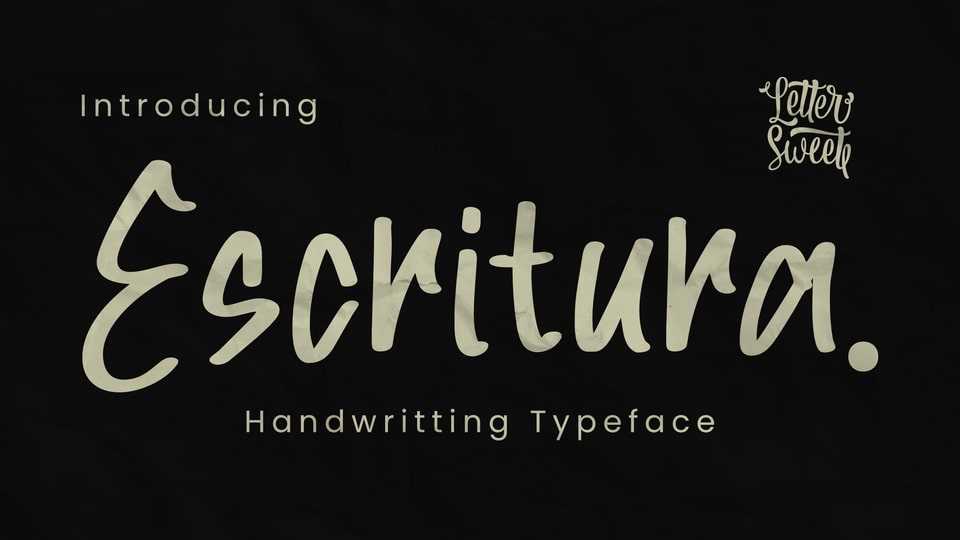
Download Escritura font, a hand-drawn script designed to exude natural character and charm. Escritura makes an ideal choice for designs intended to evoke a sense of organic simplicity and authentic beauty.